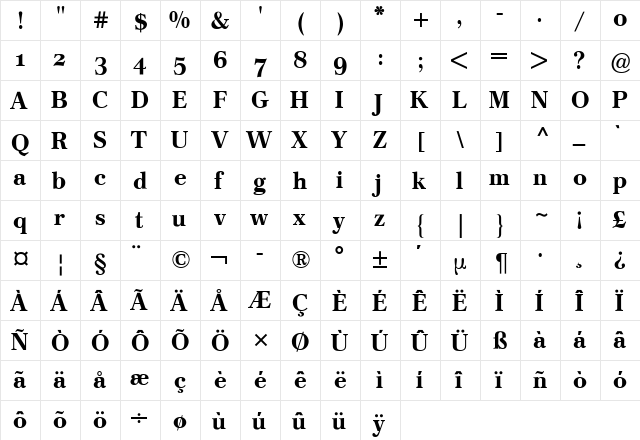
Cremona Expert BQ Bold
Design Context for Cremona Expert BQ Typeface
Cremona Expert BQ takes a measured approach to typography — its balanced proportions and neutral character make it a reliable workhorse for both digital and print work. Its bold stroke weight gives it real presence on the page.